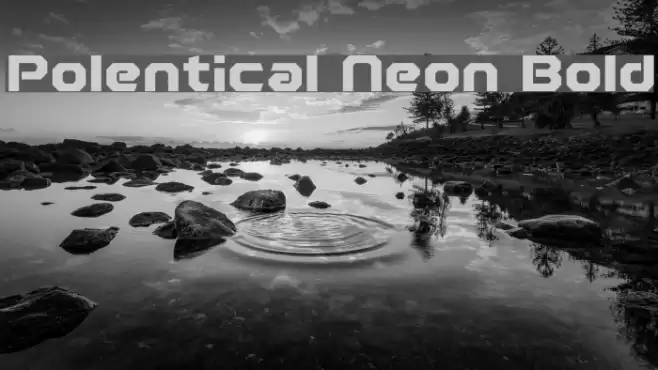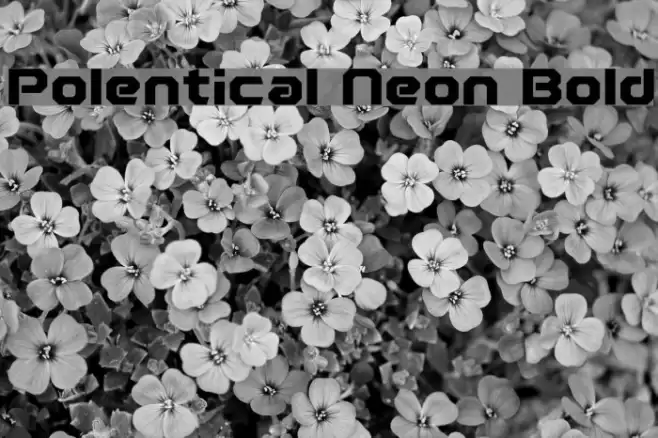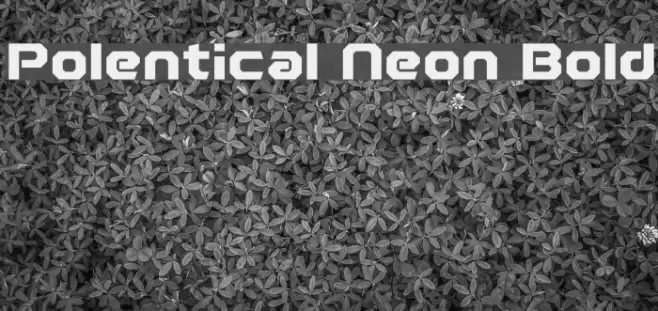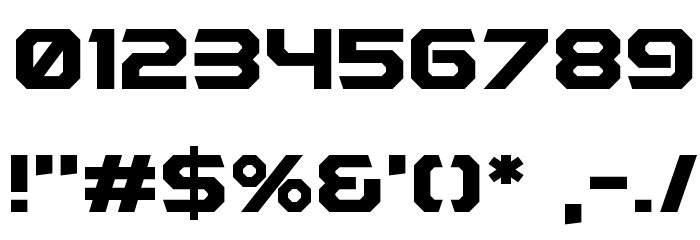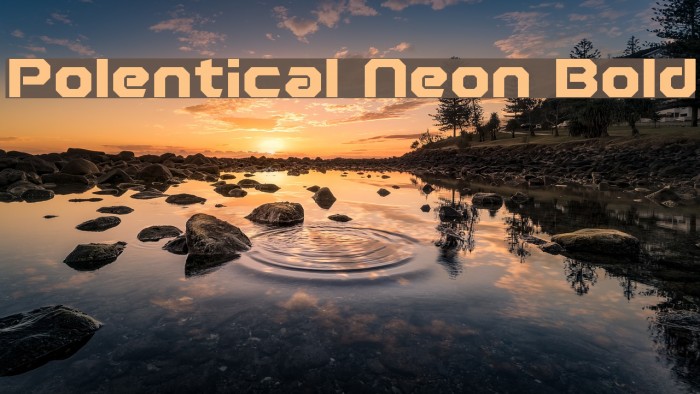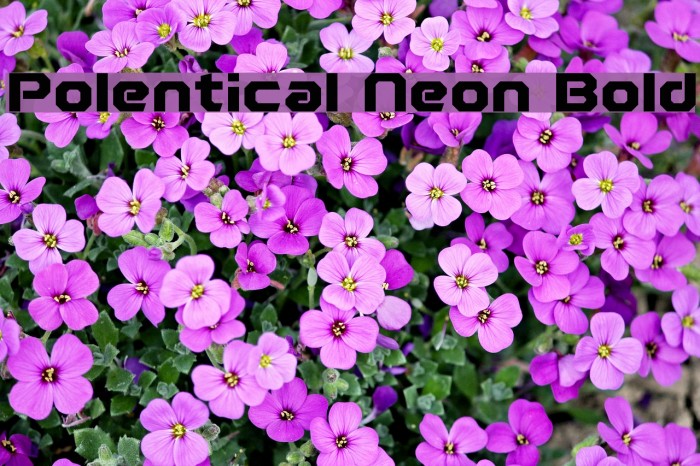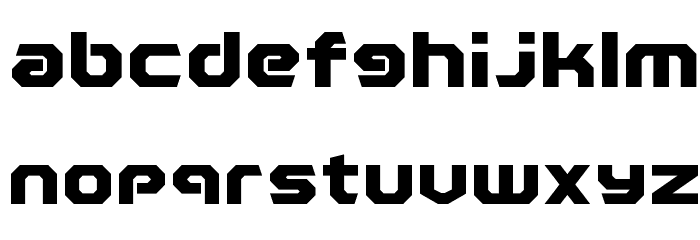
Polentical Neon Bold Font
Polentical Neon Bold Description
This font features a bold, geometric design with a futuristic aesthetic. The characters are constructed with sharp angles and straight lines, creating a sense of precision and modernity. The uppercase and lowercase letters maintain a consistent style, with the lowercase mirroring the uppercase in structure but with a slightly reduced height. The numerals and special characters follow the same angular and bold design, ensuring uniformity across all glyphs. This font's strong presence and unique style make it ideal for projects that require a modern and impactful look.
A bold, geometric font with a futuristic and angular design from Uncategorized fonts.
- Proposed Projects: Ideal for technology branding, sci-fi themed projects, video game titles, and modern posters.